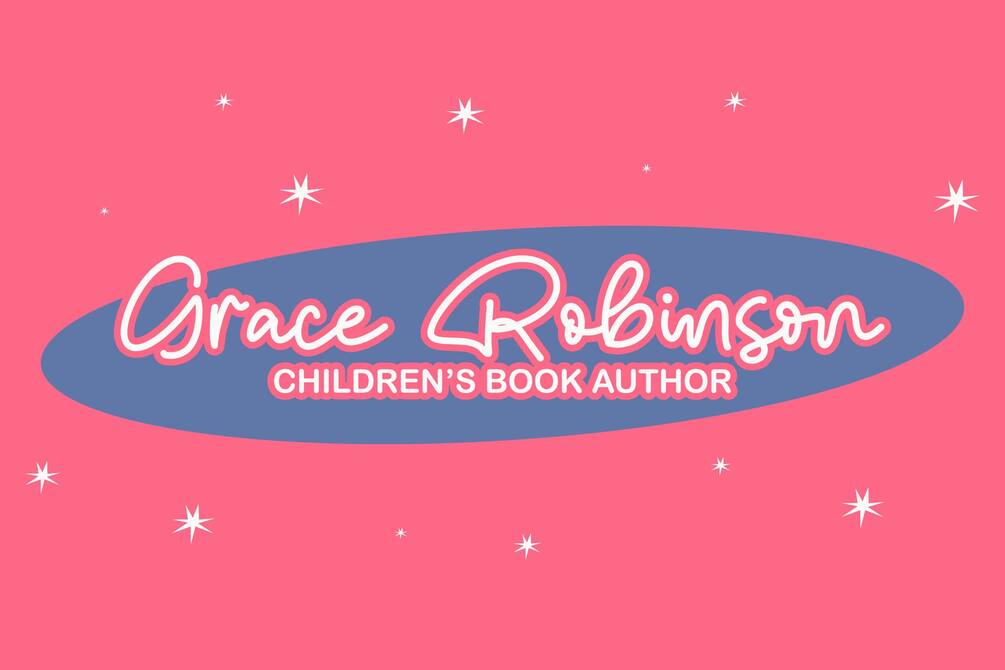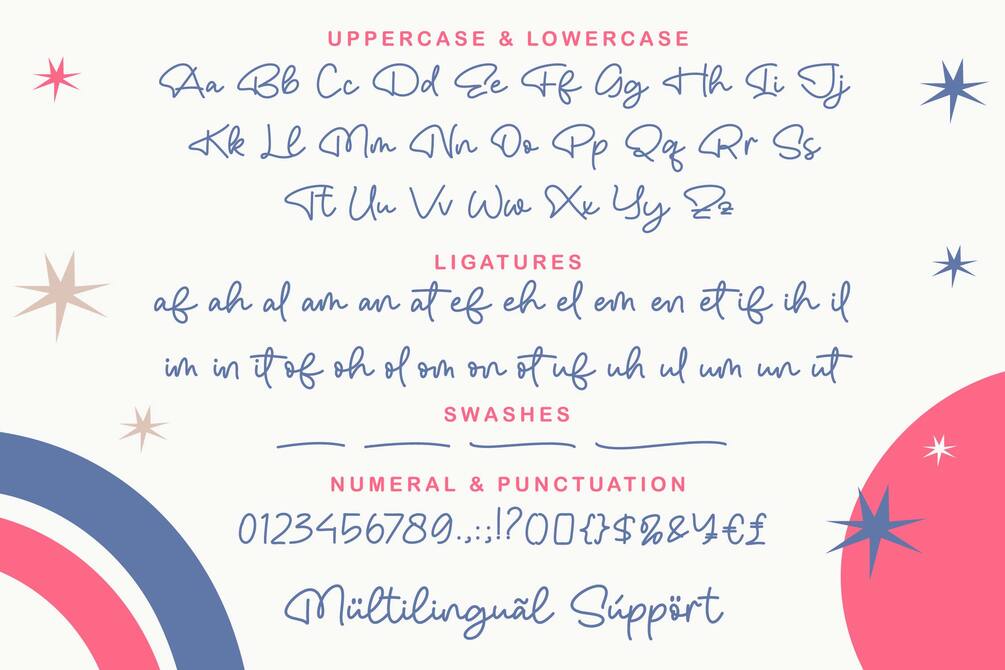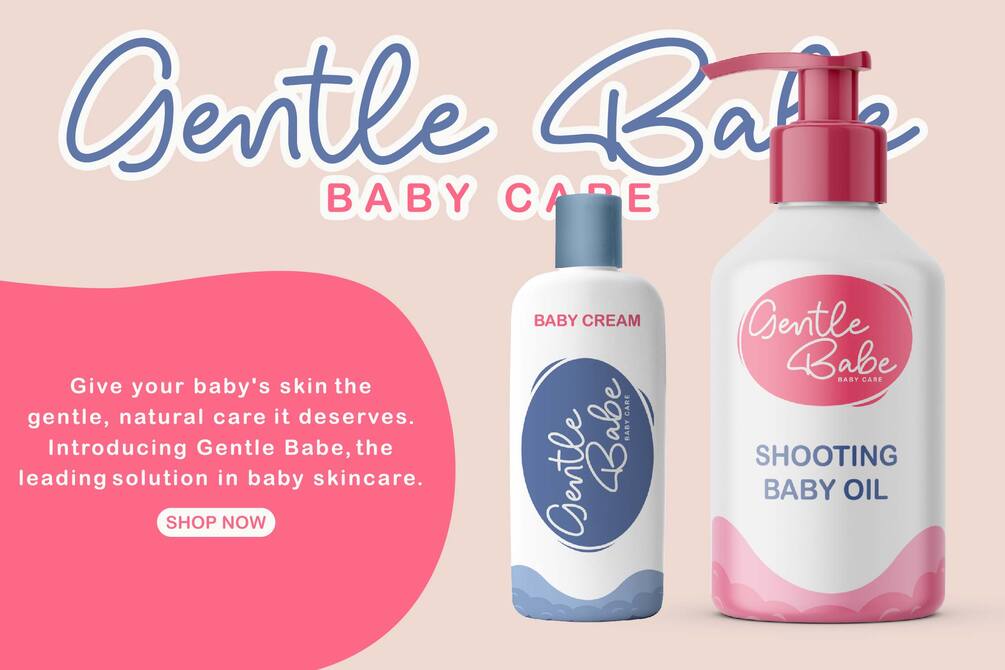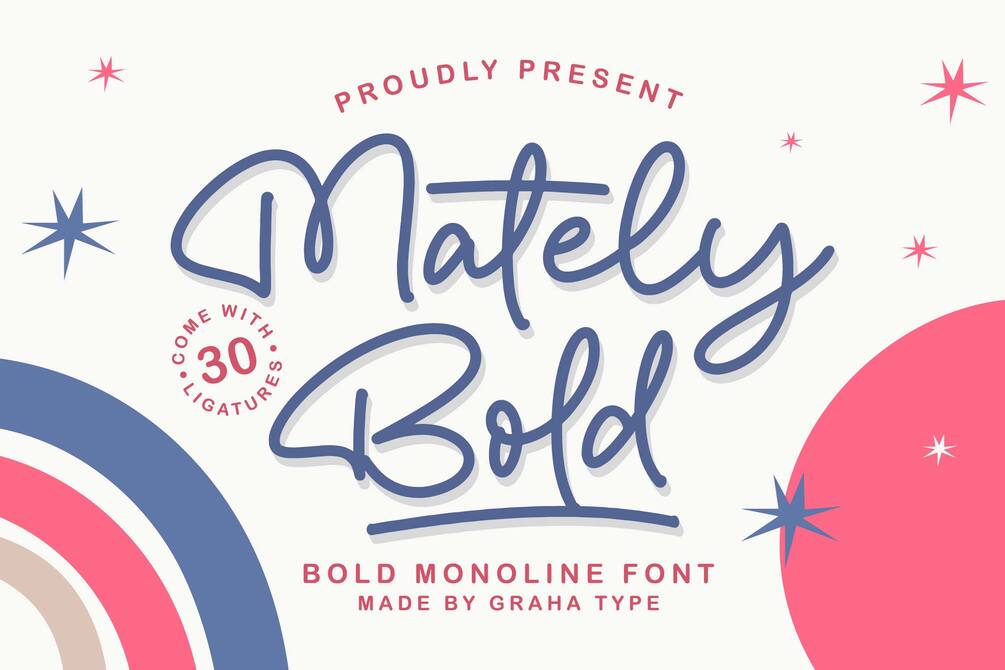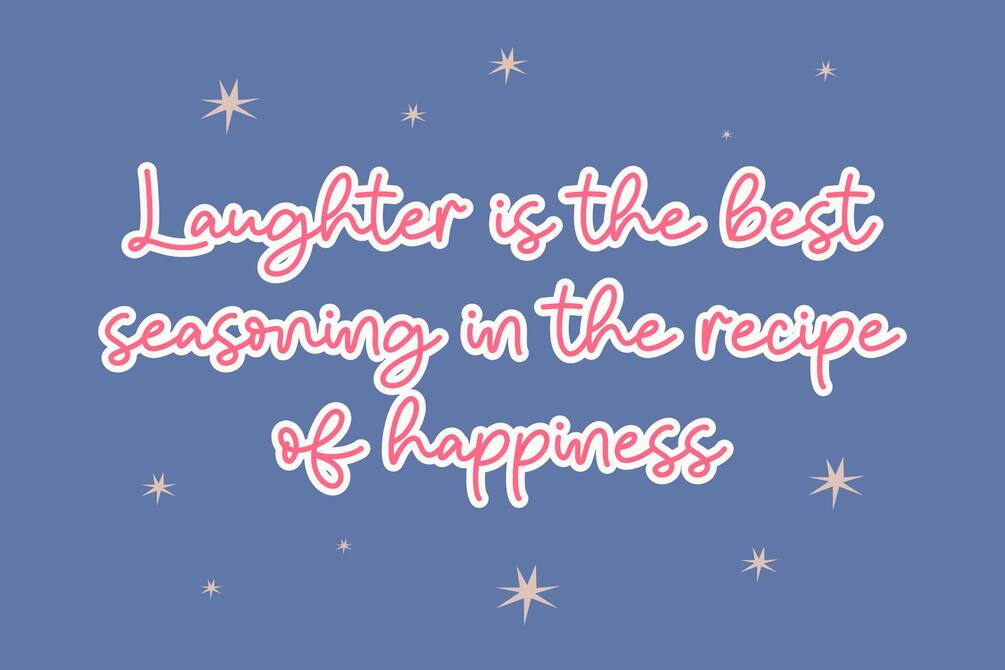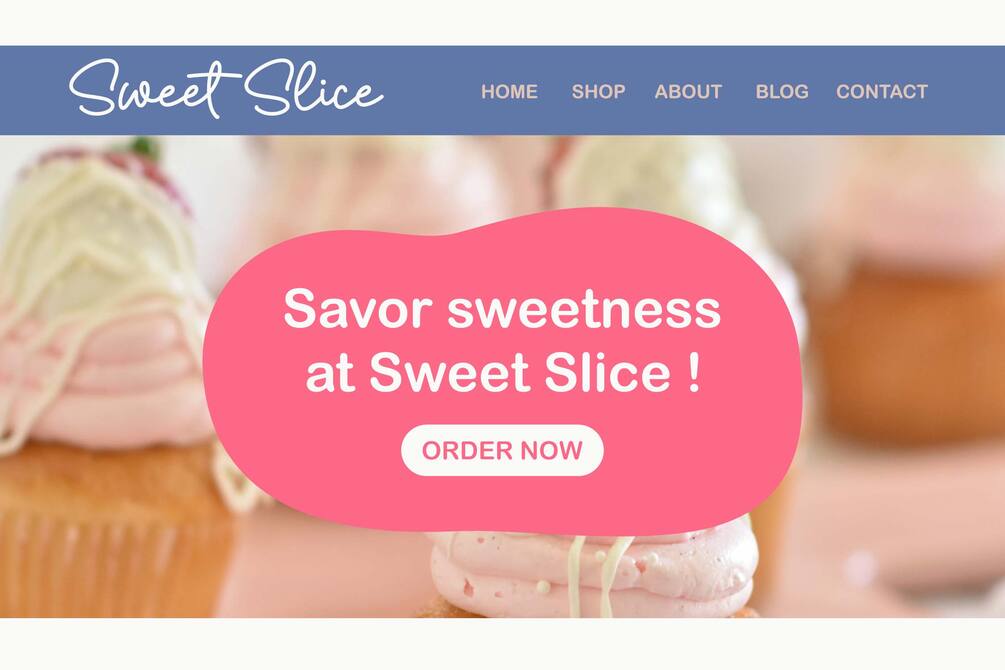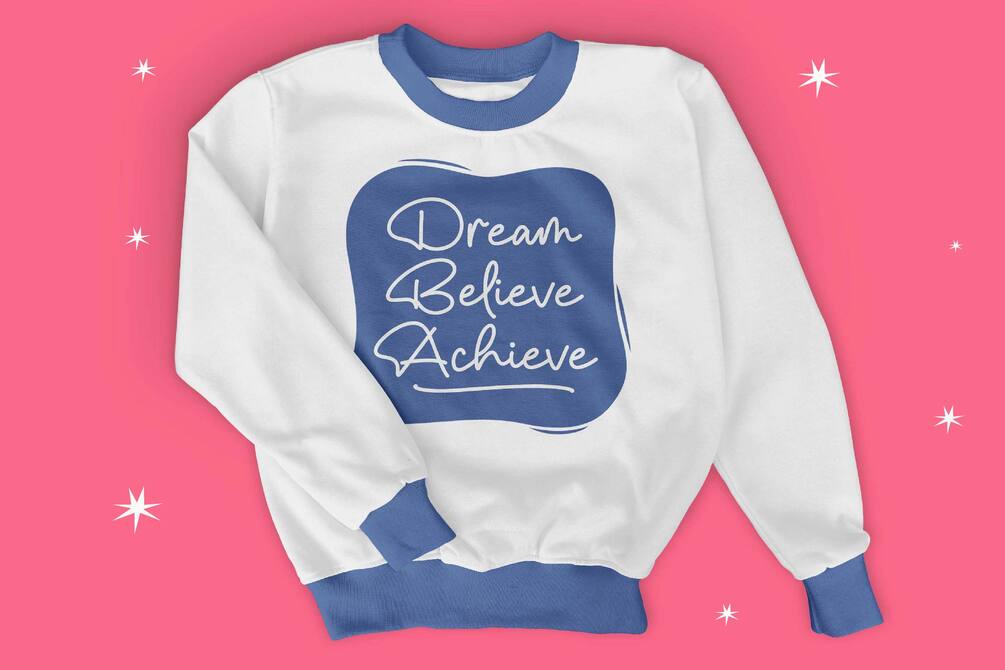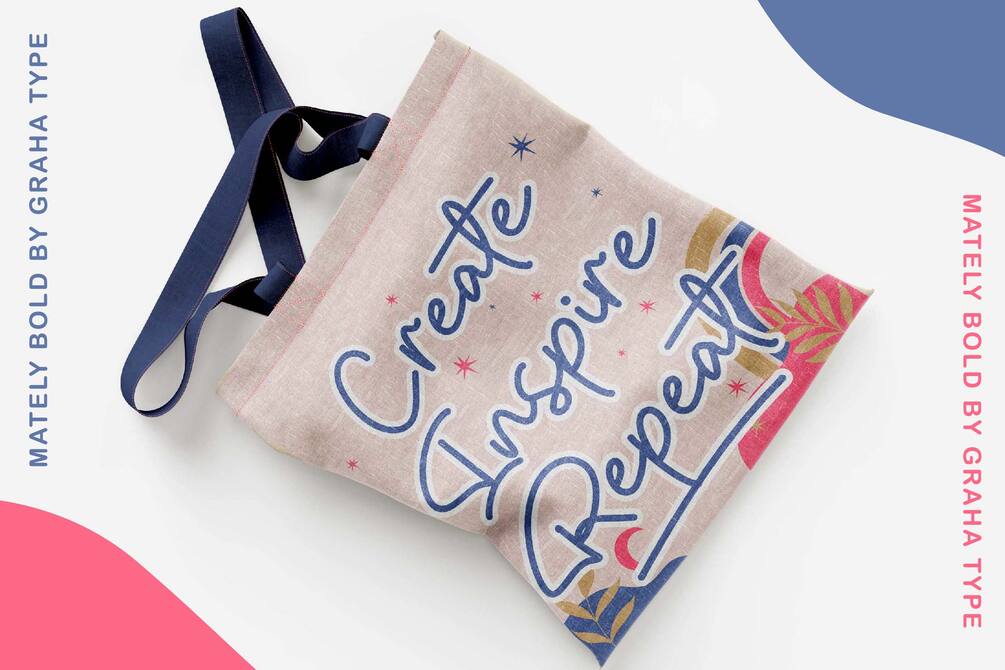
Mately Bold - Bold Monoline Font
Mately Bold is a bold monoline font that blends the charm of handwritten aesthetics with a fluid and playful demeanor. It excels in enhancing design quality across various applications such as logos, branding, invitations, merchandise, and more. This font offers a unique combination of consistent monoline structure, inviting personality, making it an ideal choice for creating visually appealing and memorable designs.
Ligatures
Multilingual Support